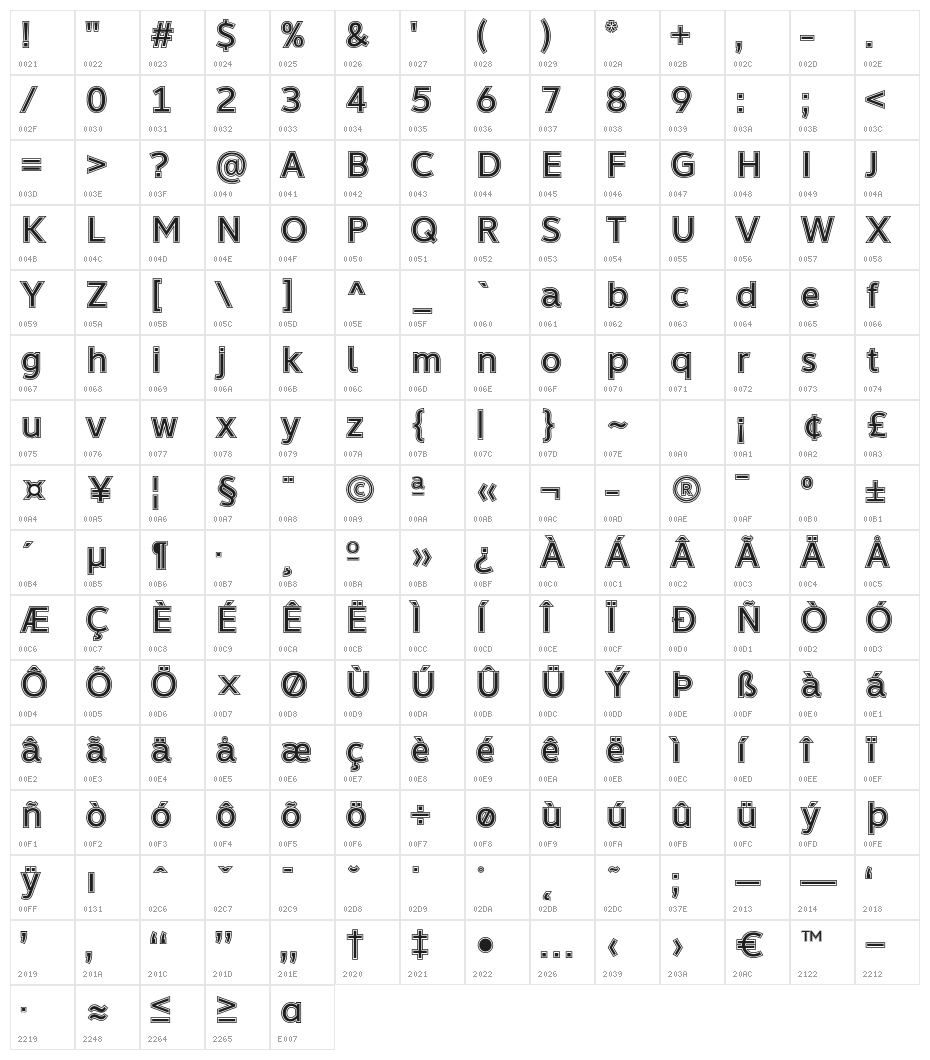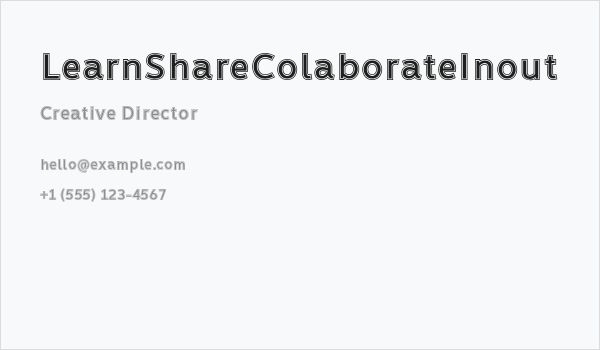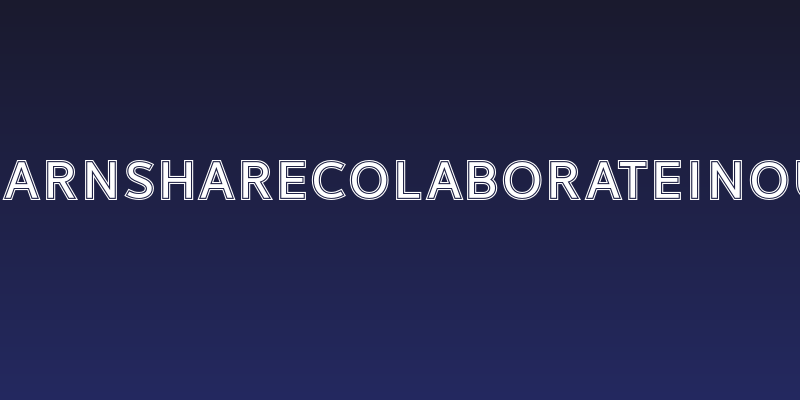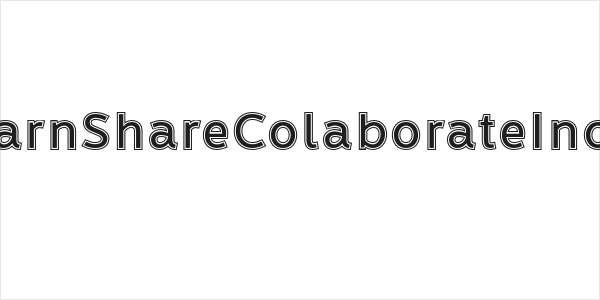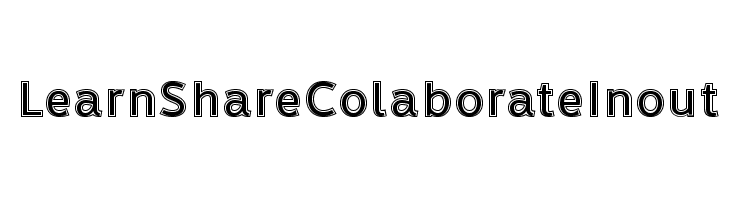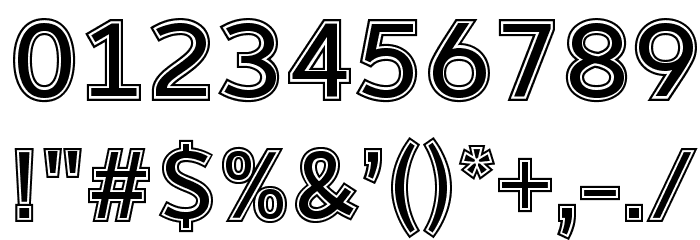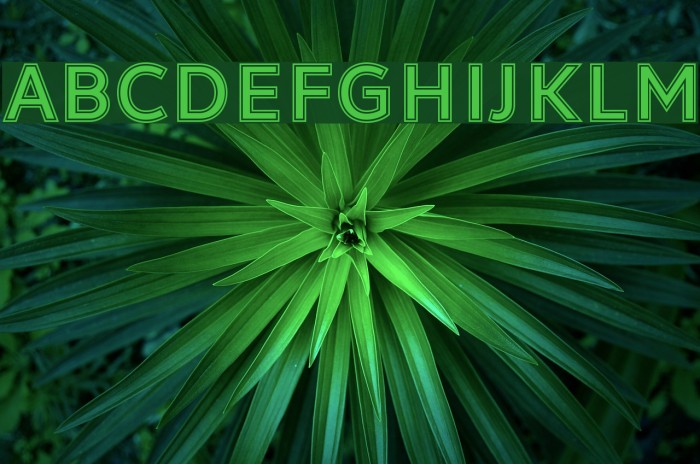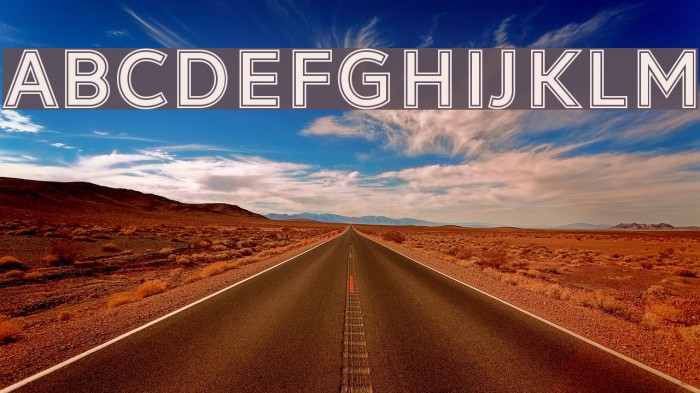
LearnShareColaborateInout Font
7NTypes - Situjuh Nazara - 7ntypes.com
| Рекомендуемые проекты | Ideal for branding, headlines, posters, and digital media where a modern and striking appearance is desired. |